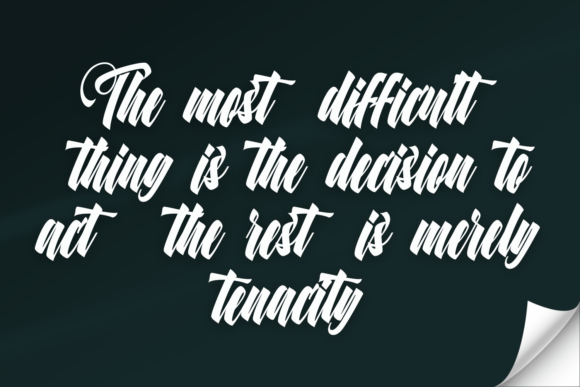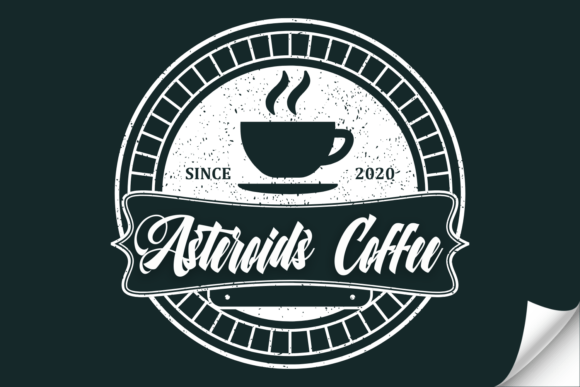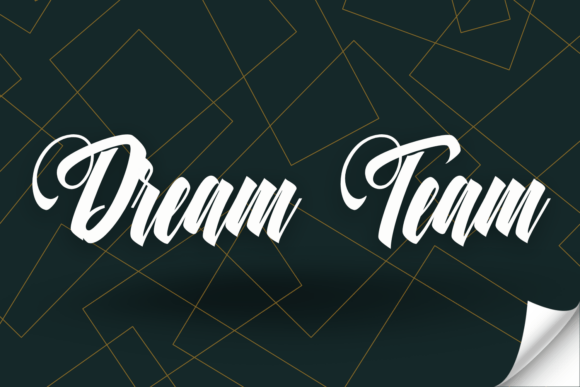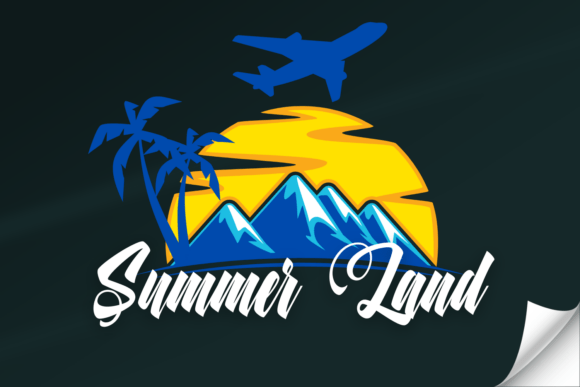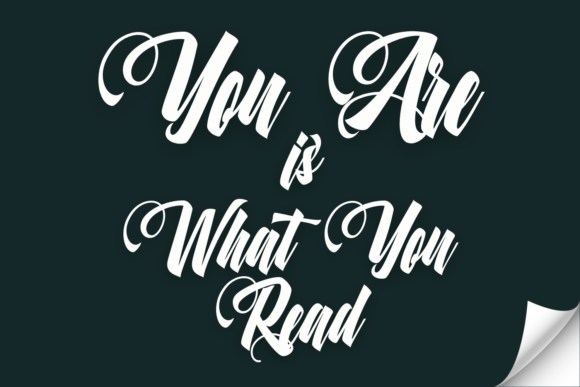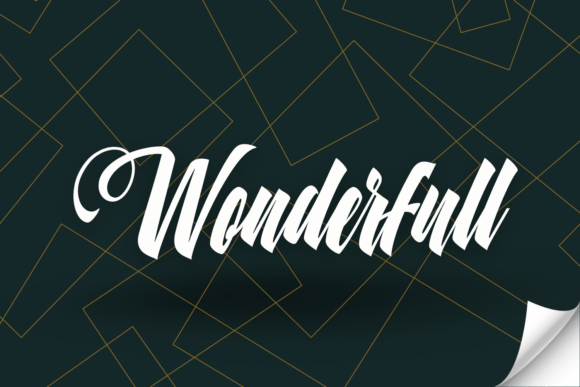
Introduction to Rasettagin Font
Unleash Bold Strength with Brush Calligraphy ๐จโจ Transform your brandโs identity with the perfect blend of artistry and attitude.
Introducing Rasettagin, a Handcrafted Brush Calligraphy font designed for brands that demand attention โ Authentic Brush Calligraphy Style โ Every stroke exudes personality and fluid motion.
Key Features of Rasettagin Font
Why Choose Rasettagin Font?
Rasettagin Font offers exceptional quality and versatility, making it a valuable addition to your design toolkit. Whether you’re creating for personal projects or commercial use, Rasettagin Font delivers professional results.